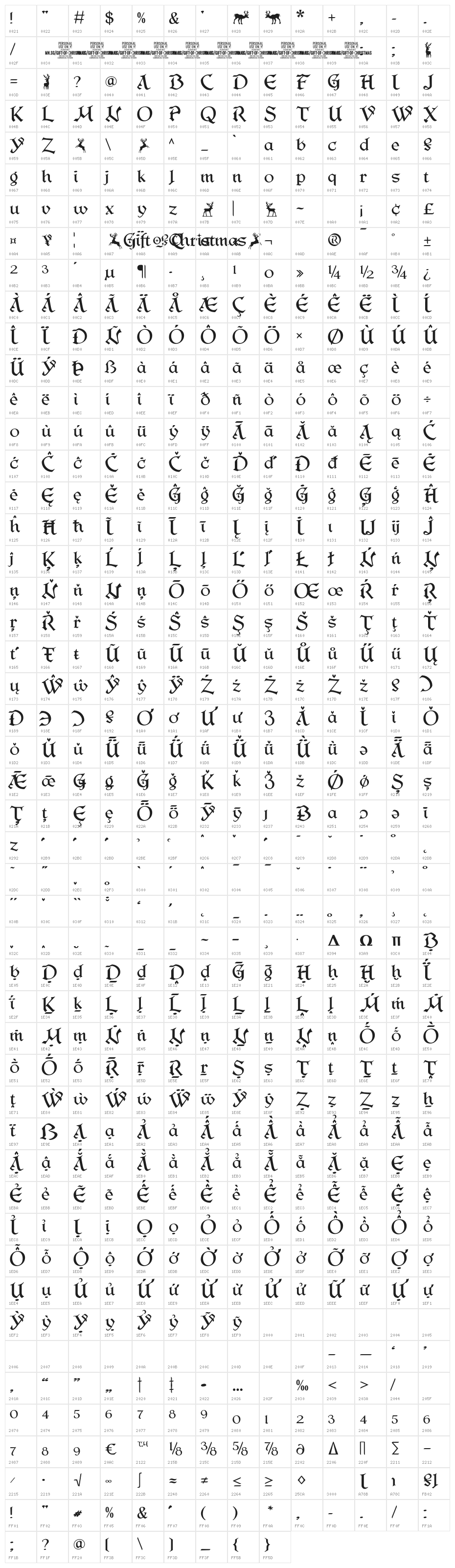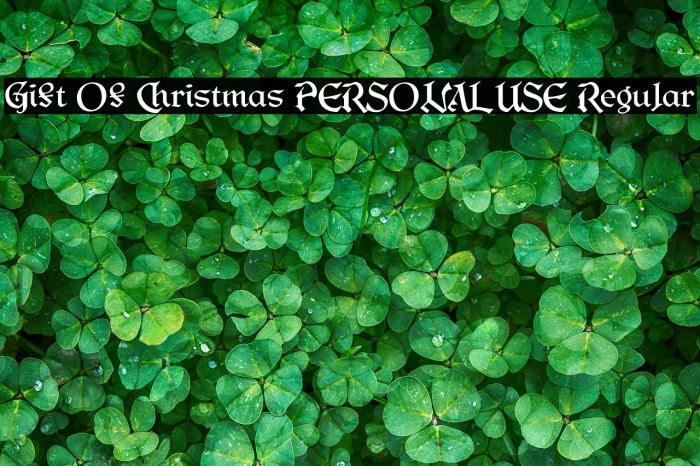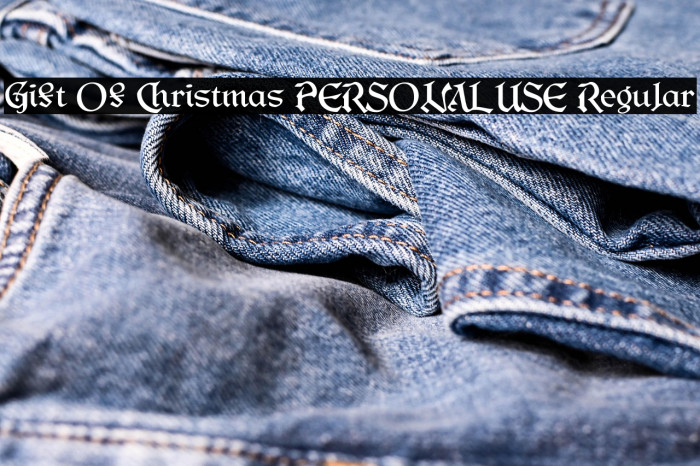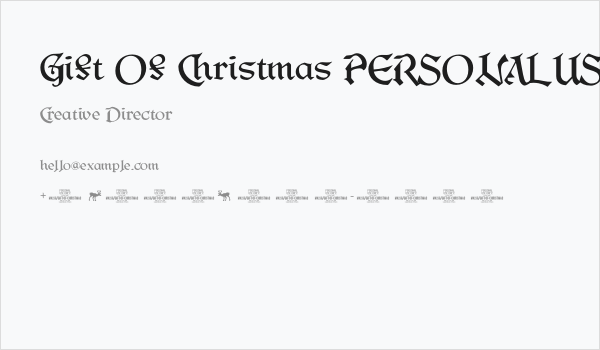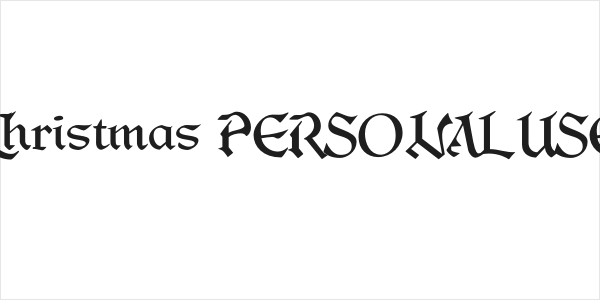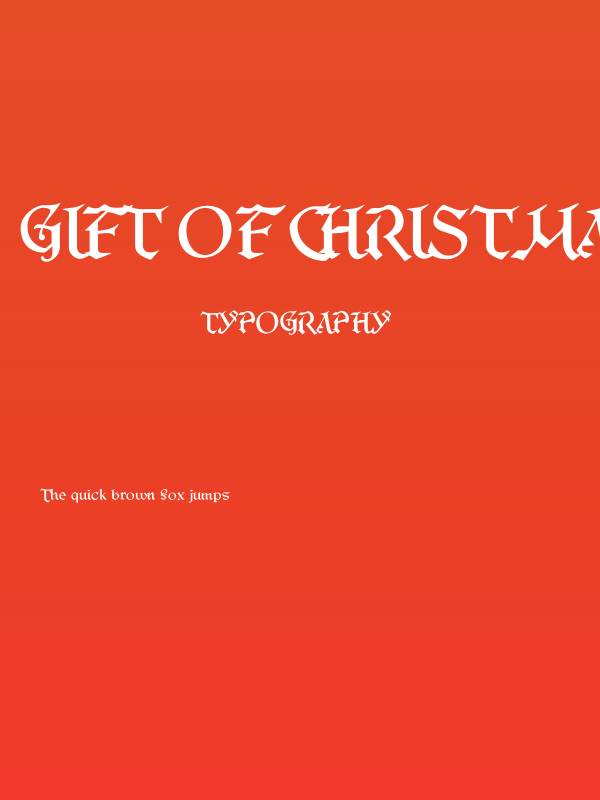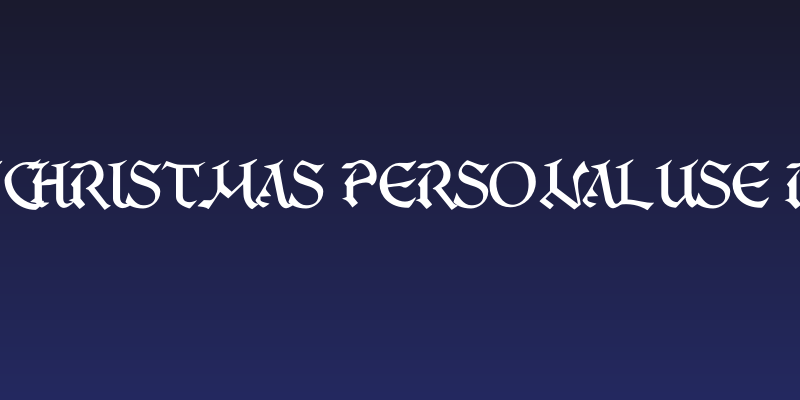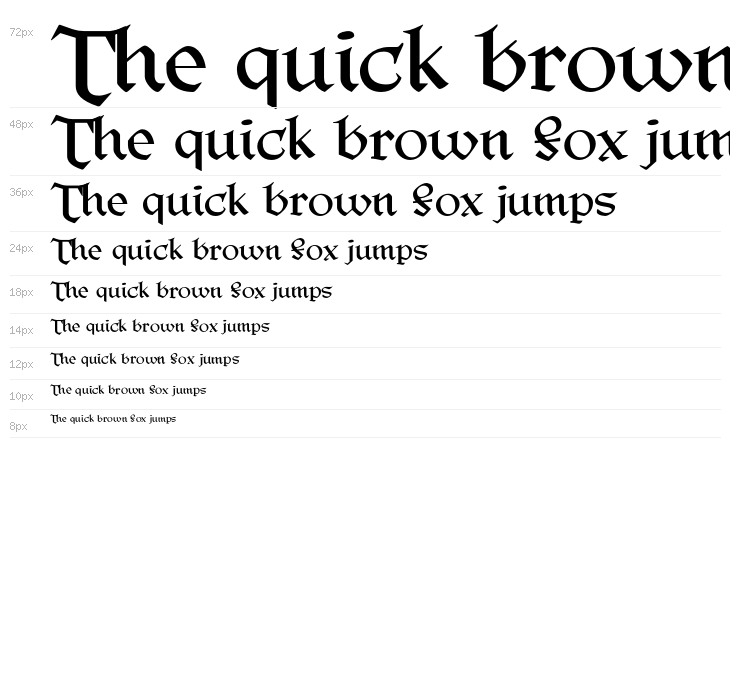
Gift Of Christmas PERSONAL USE Regular Font
Gift Of Christmas PERSONAL USE Regular Description
This font features a classic blackletter style, characterized by its sharp, angular lines and ornate detailing. The uppercase letters are bold and dramatic, with intricate curves and pointed edges that give a sense of historical elegance. The lowercase letters maintain the same intricate design, offering a cohesive look throughout the alphabet. The numbers and special characters are equally ornate, fitting seamlessly with the overall aesthetic. This font evokes a sense of tradition and formality, making it ideal for projects that require a touch of historical or medieval flair.
| Proposed Projects | Ideal for holiday cards, invitations, historical documents, or any project needing a traditional, medieval touch. |